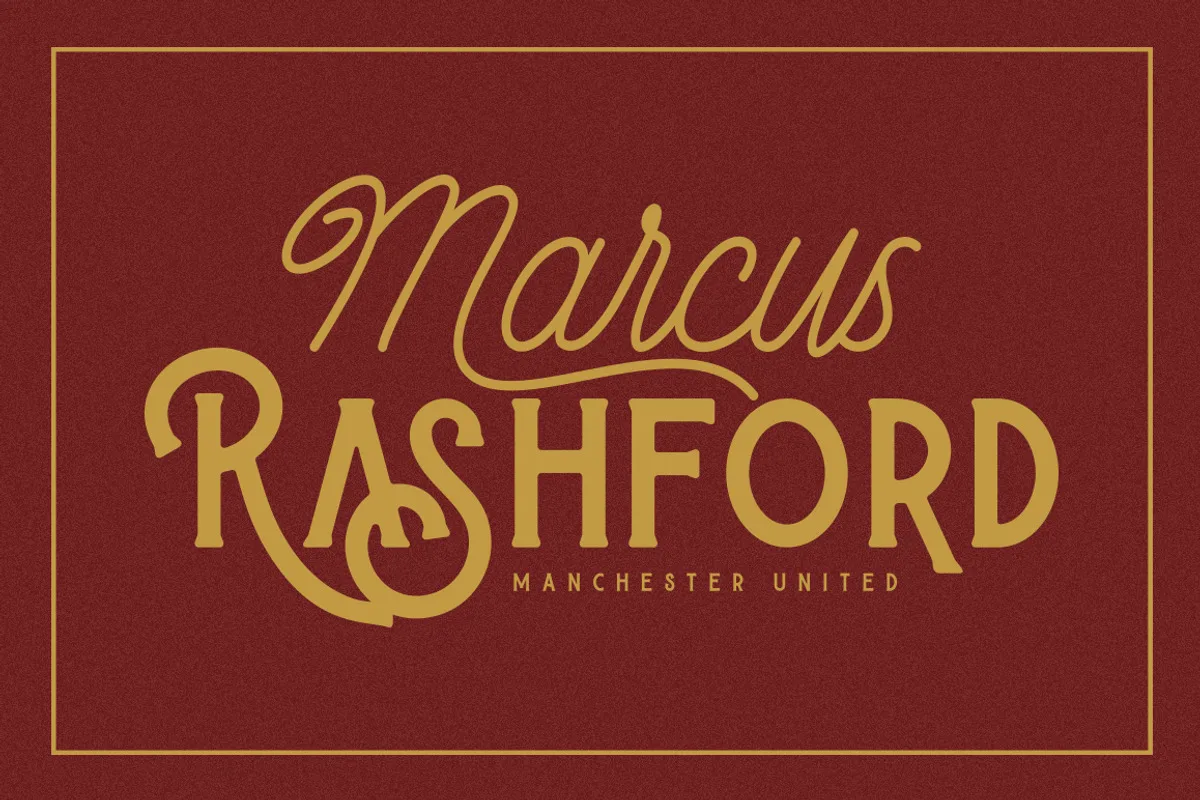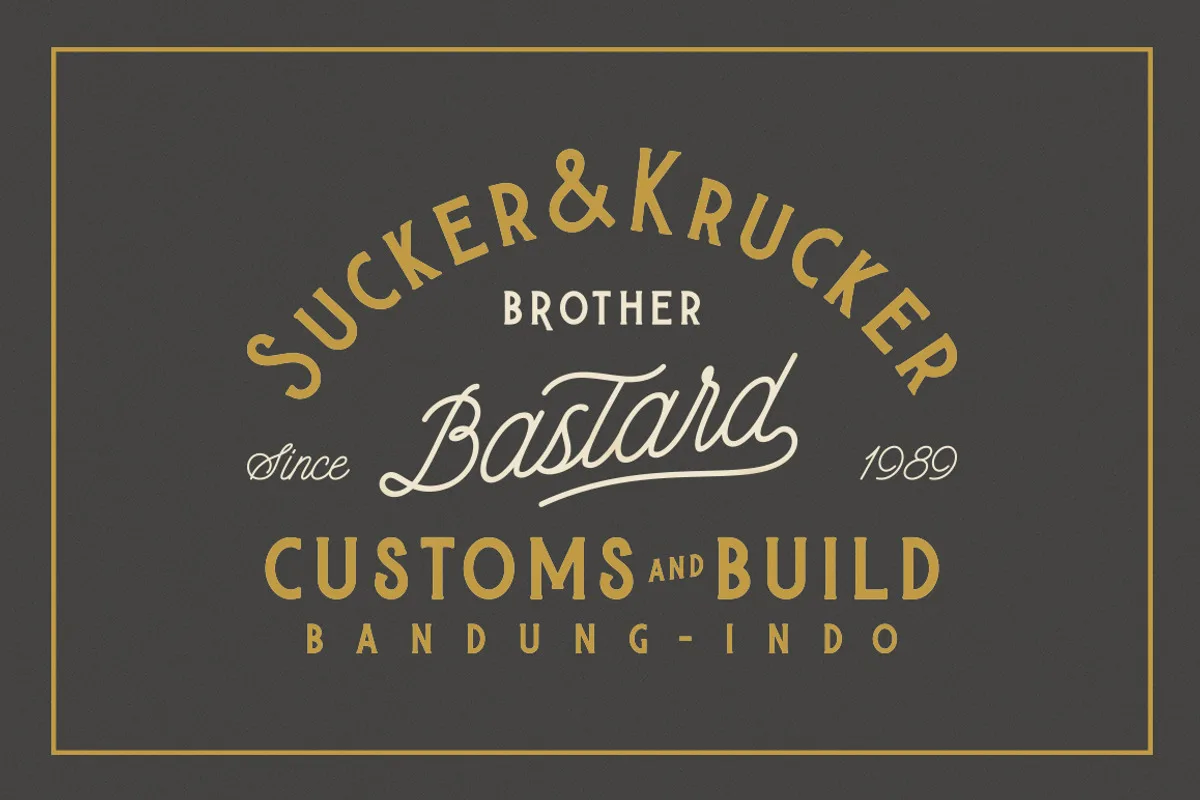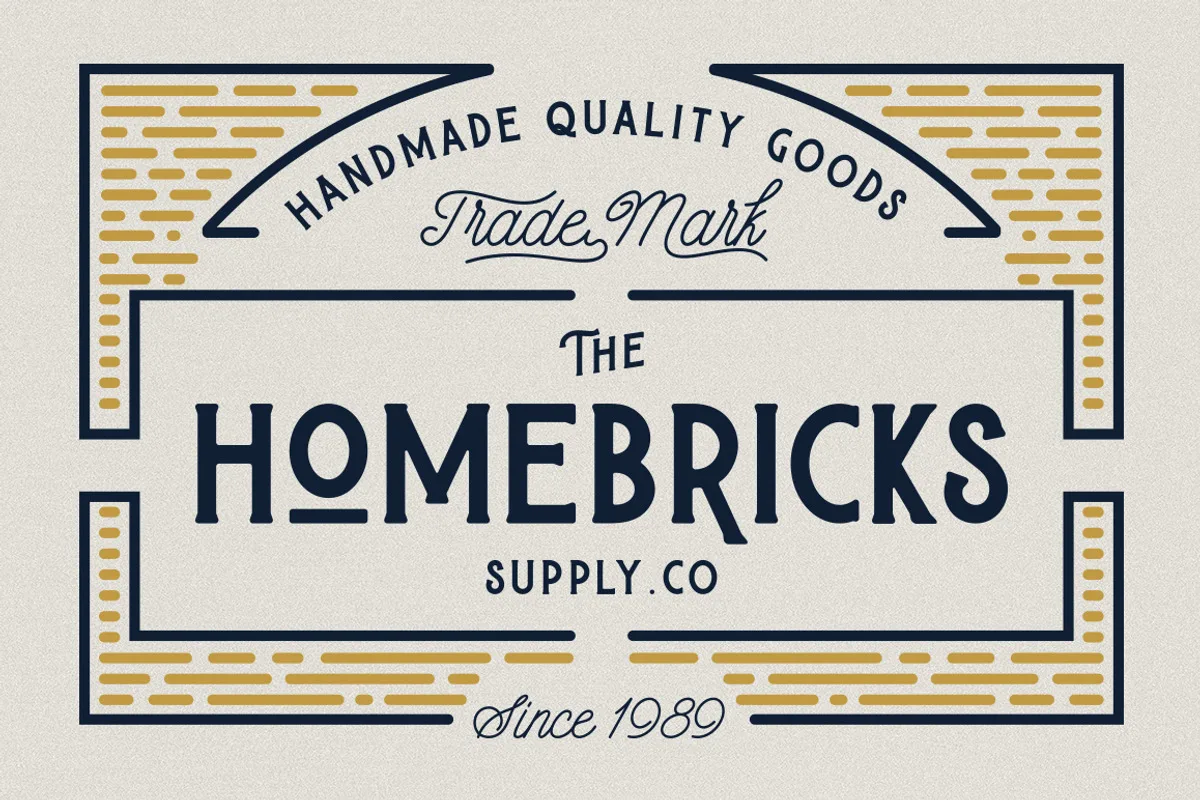
Badhorse is a new display font with clean characters. This delightful font duo combines a clean serif with a playful script, allowing you to create striking headlines, signs, posters, cards, and more.
- Uppercase & Lowercase
- Stylistic Alternates
- Ligatures
- Symbols & Punctuation
- International Characters